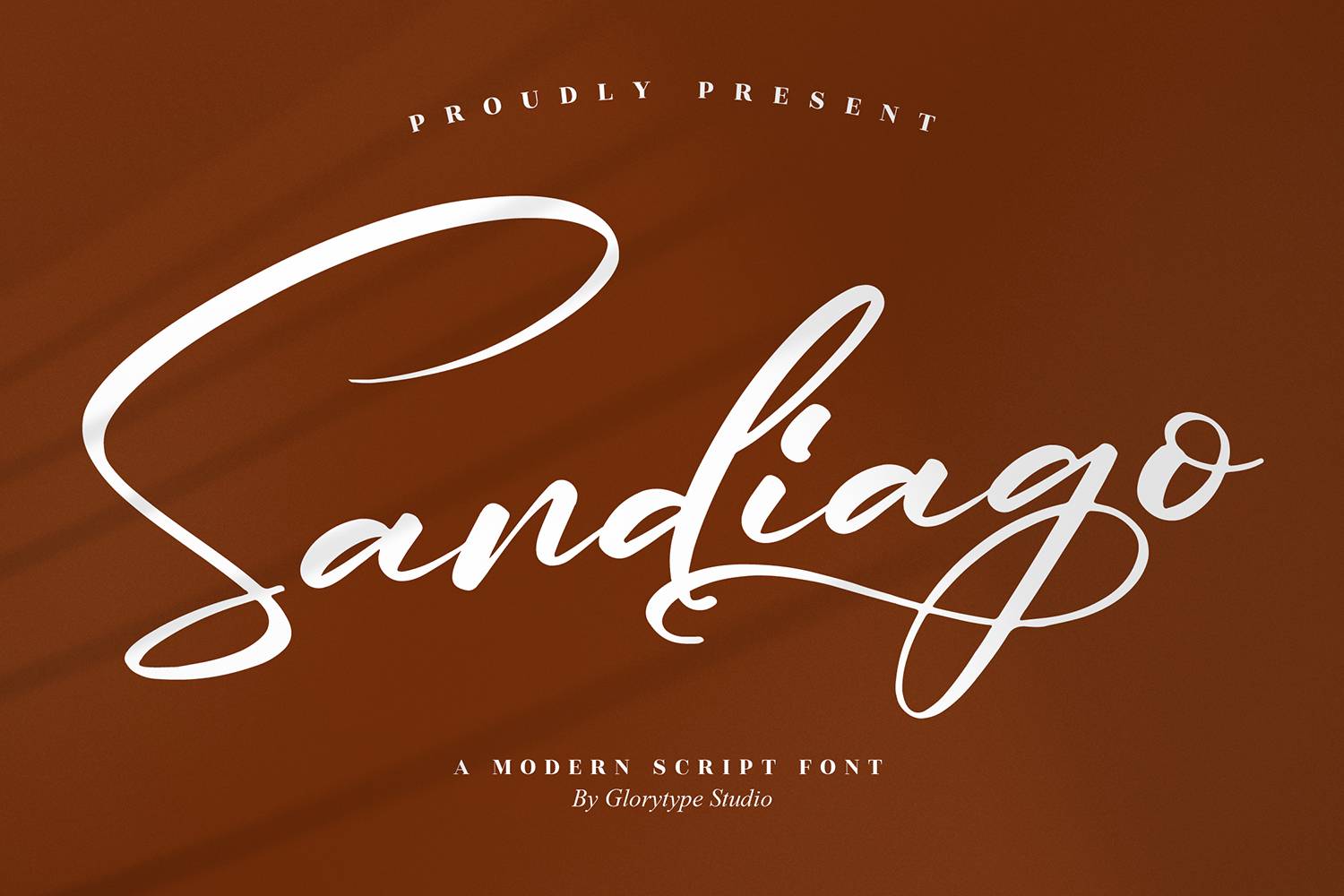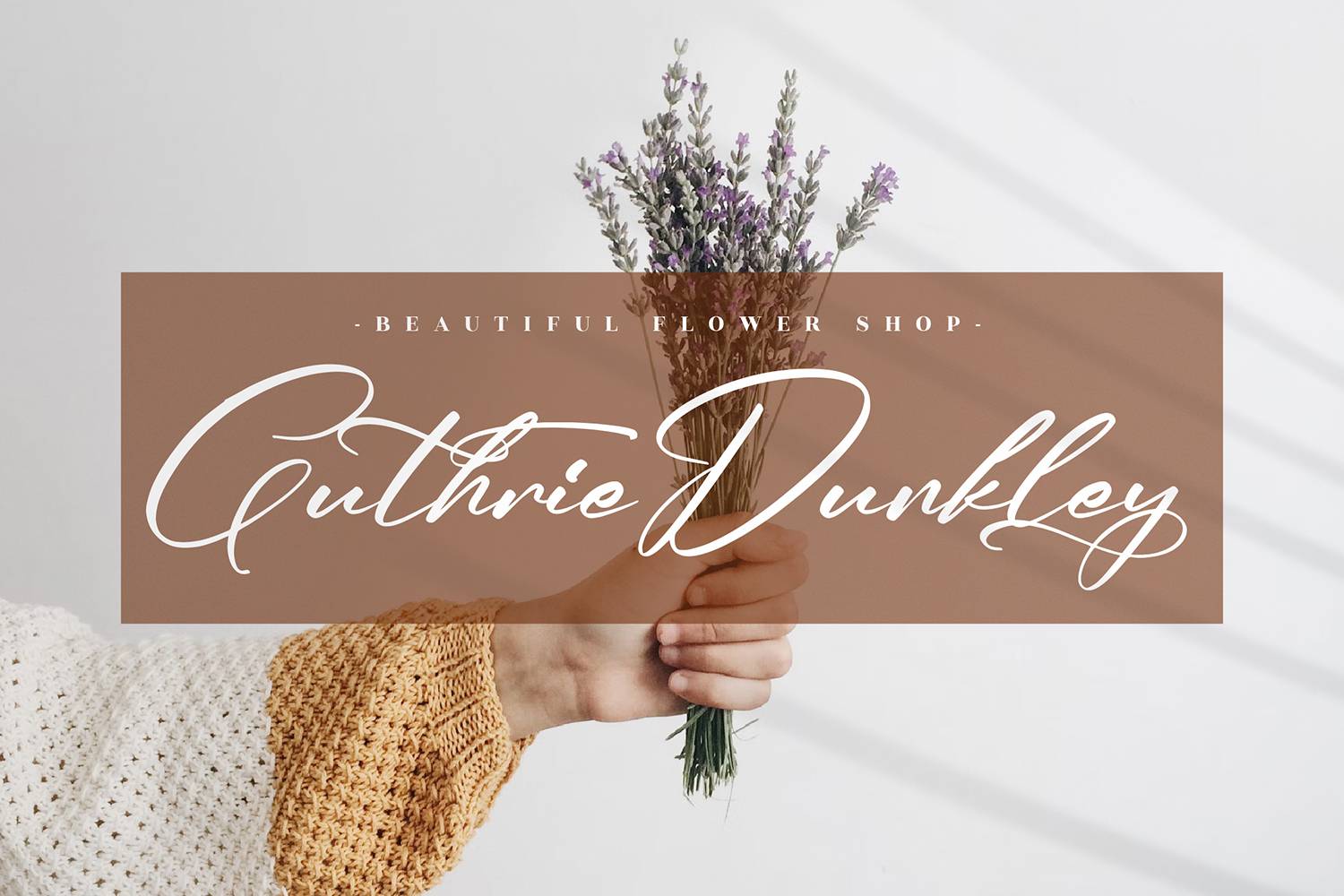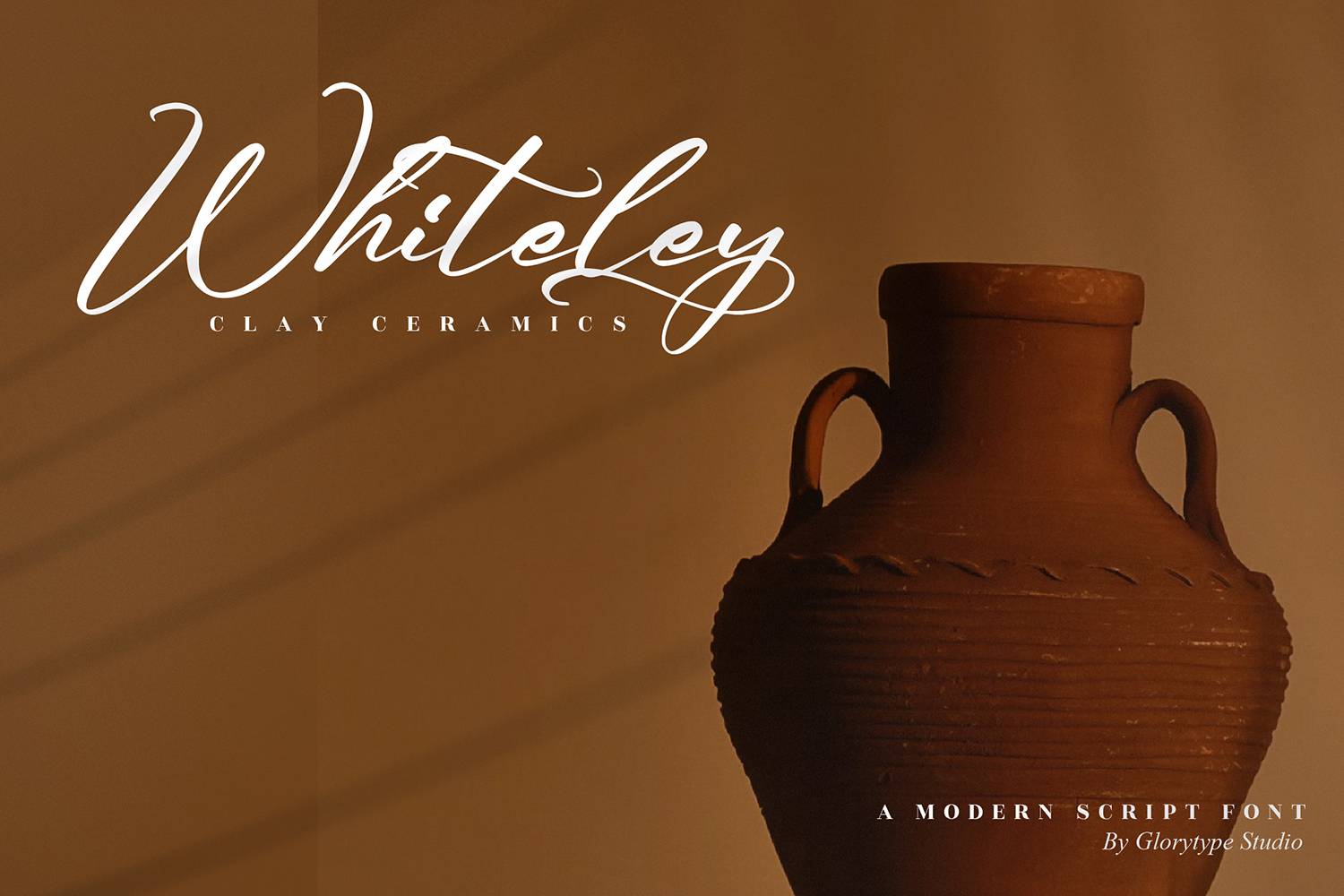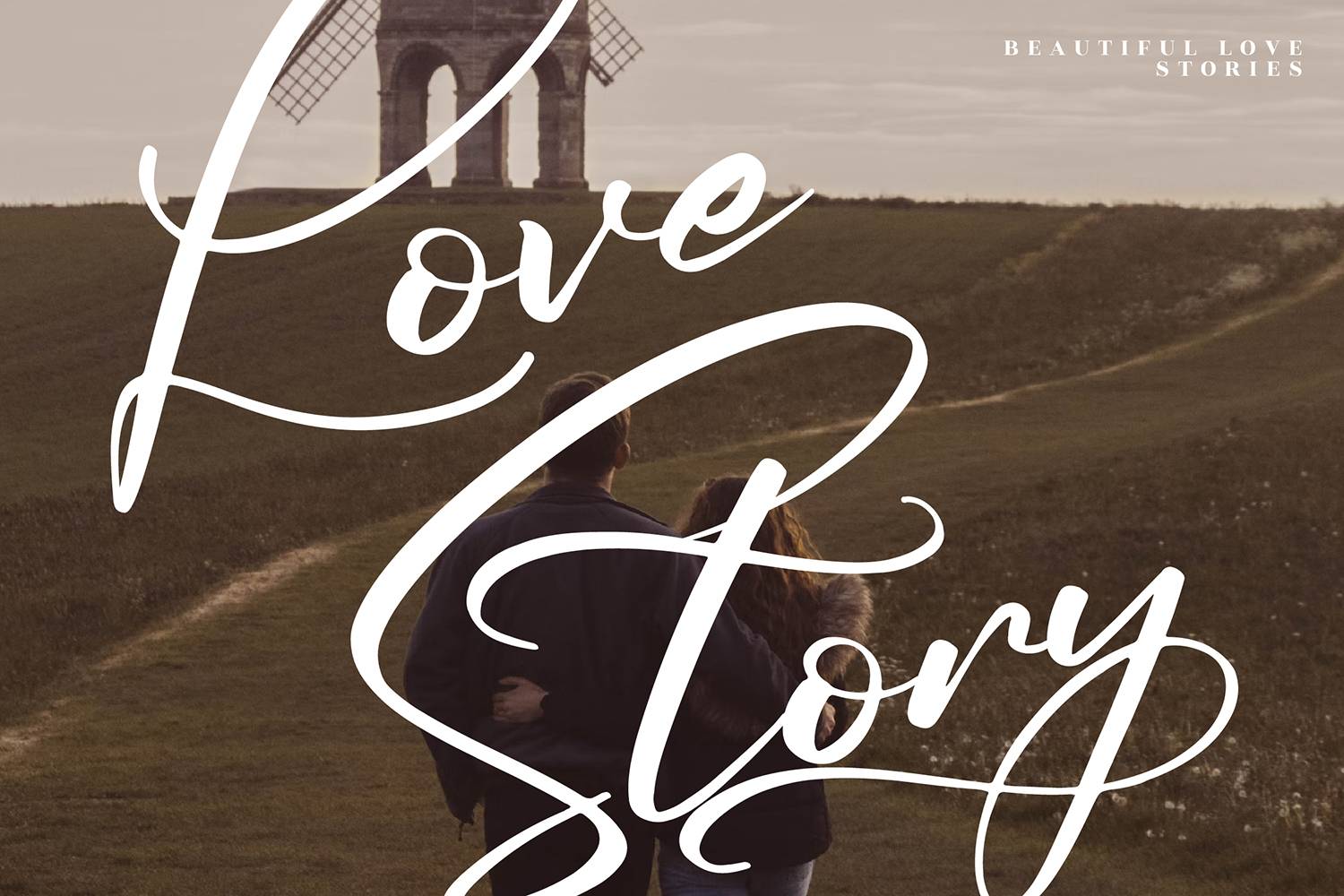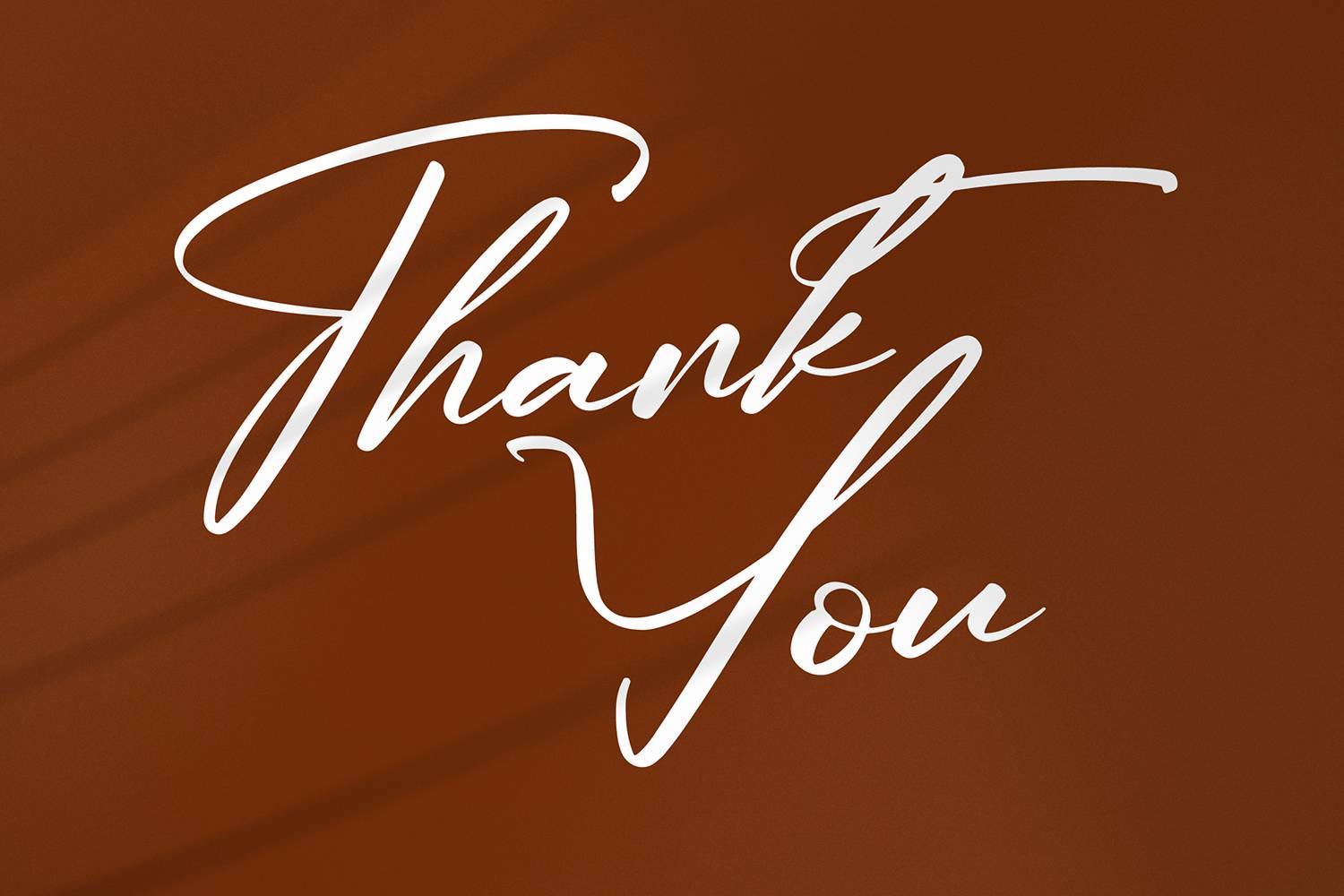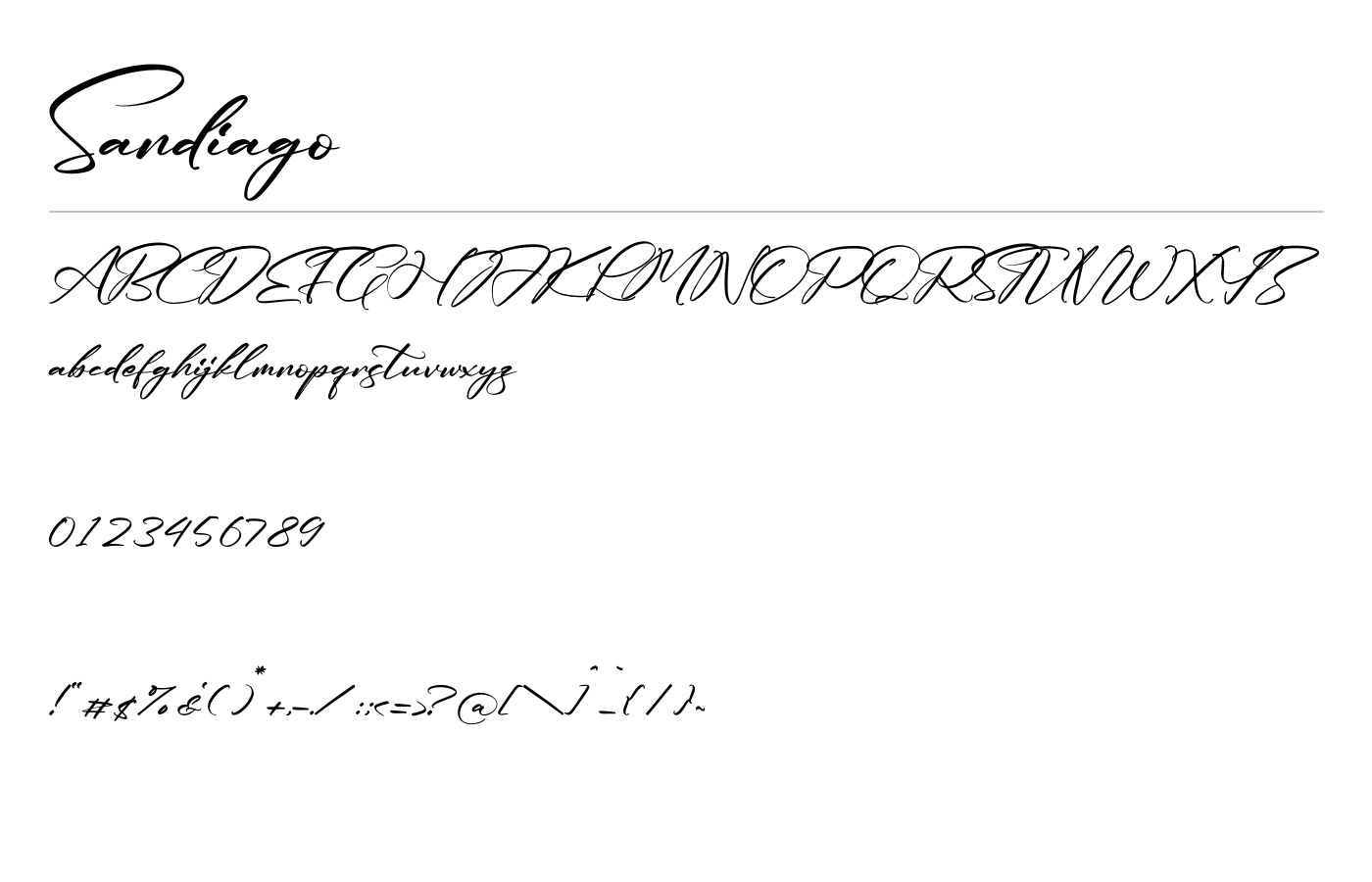
Sandiago is an elegant script font characterized by its flowing, cursive letterforms and delicate strokes that convey a refined and graceful personality. With its high contrast and slender lines, it brings a sophisticated, handwritten feel that works beautifully for fashion branding, invitations, and luxurious editorial designs where a personal yet polished touch is desired. This font shines best in large sizes for logos or headlines, adding a stylish and expressive flair to any creative project.
Sandiago Font
About Sandiago Font